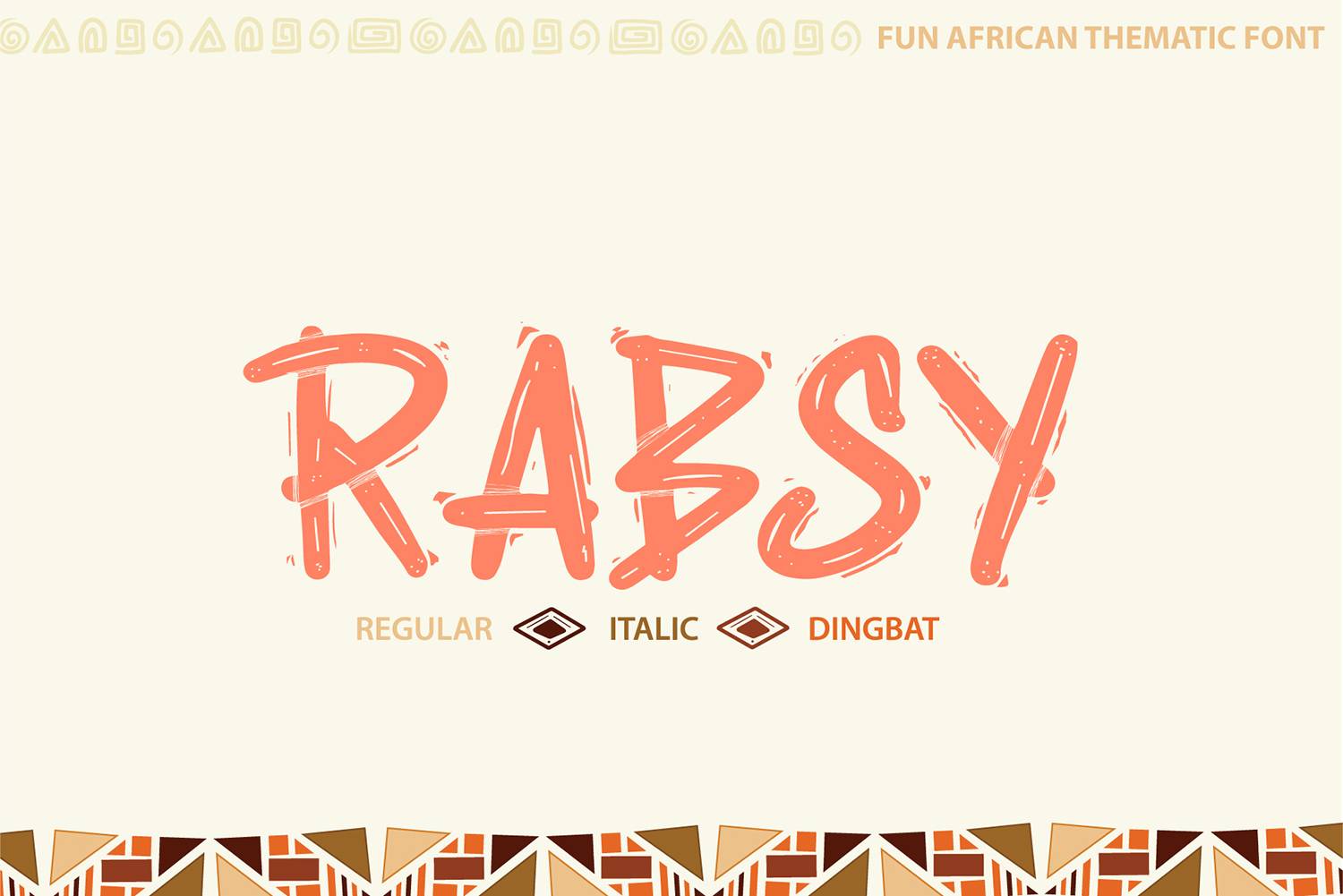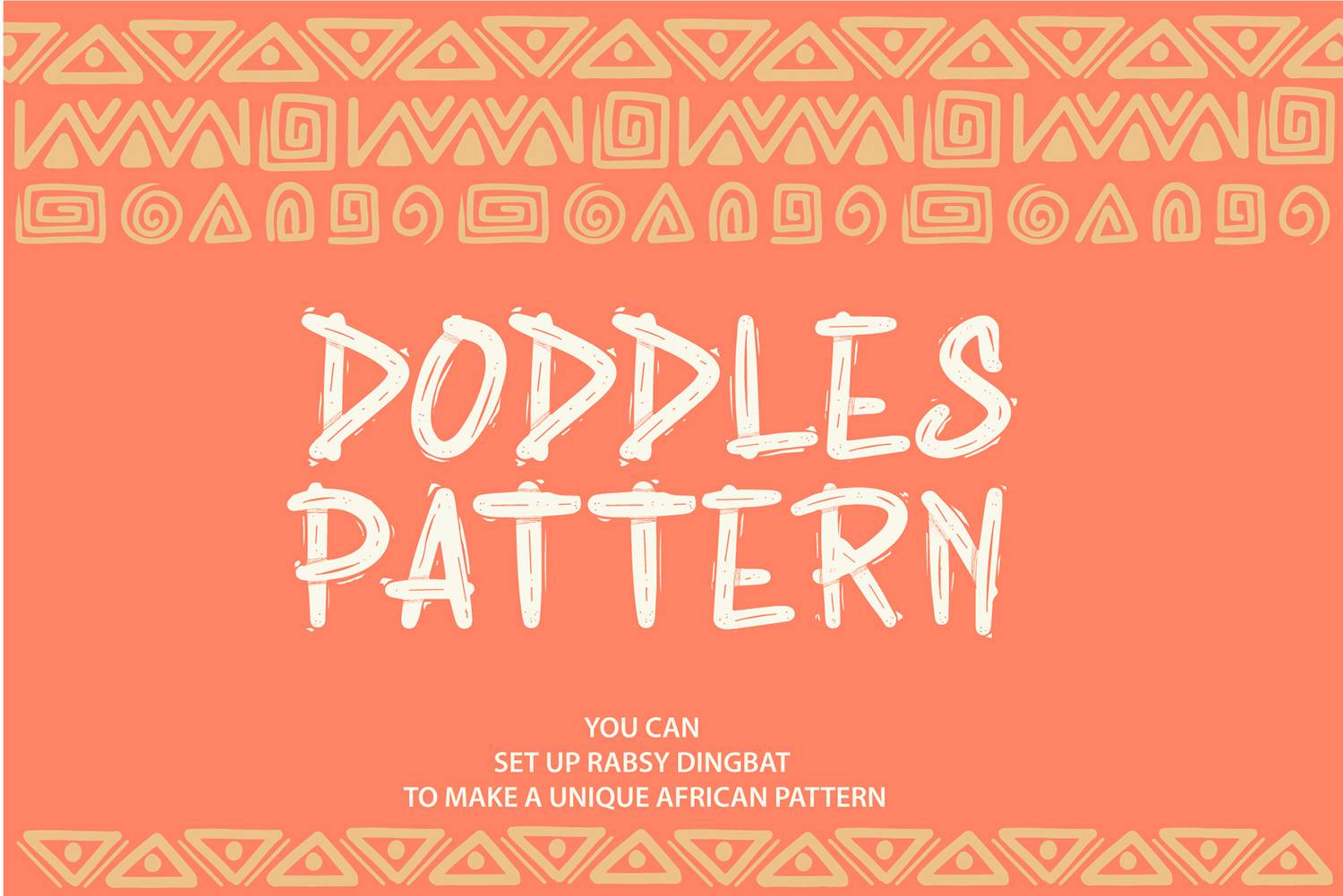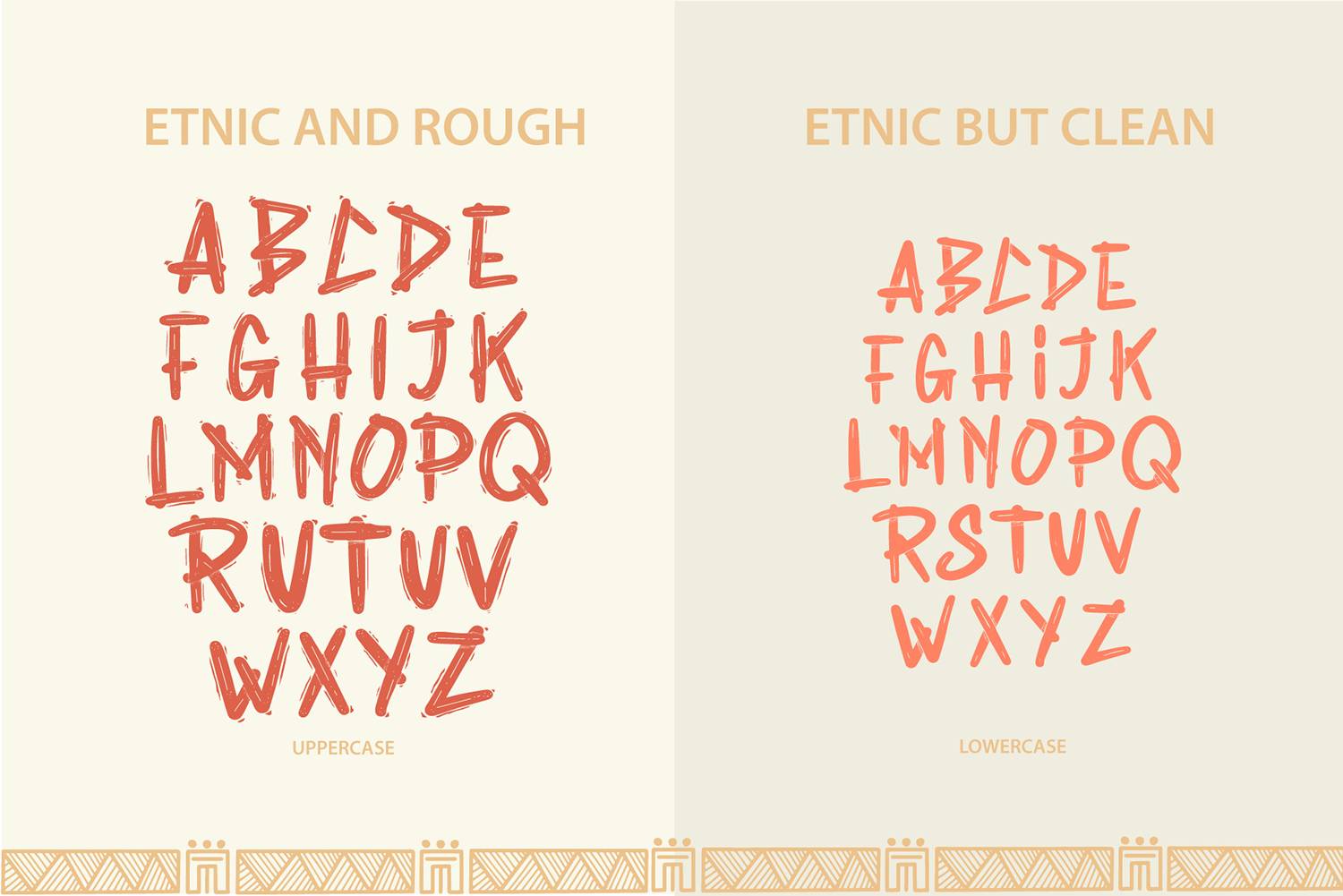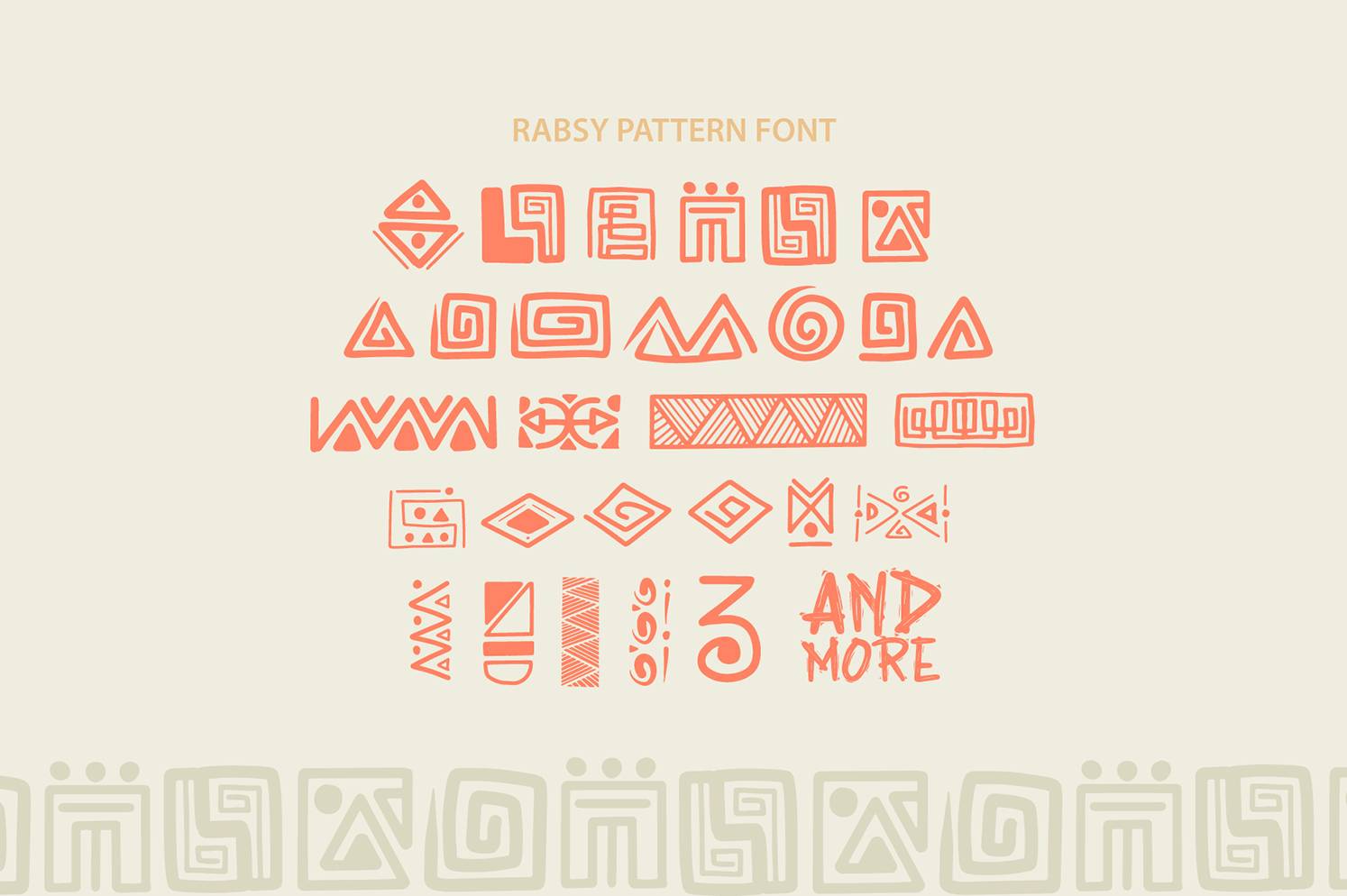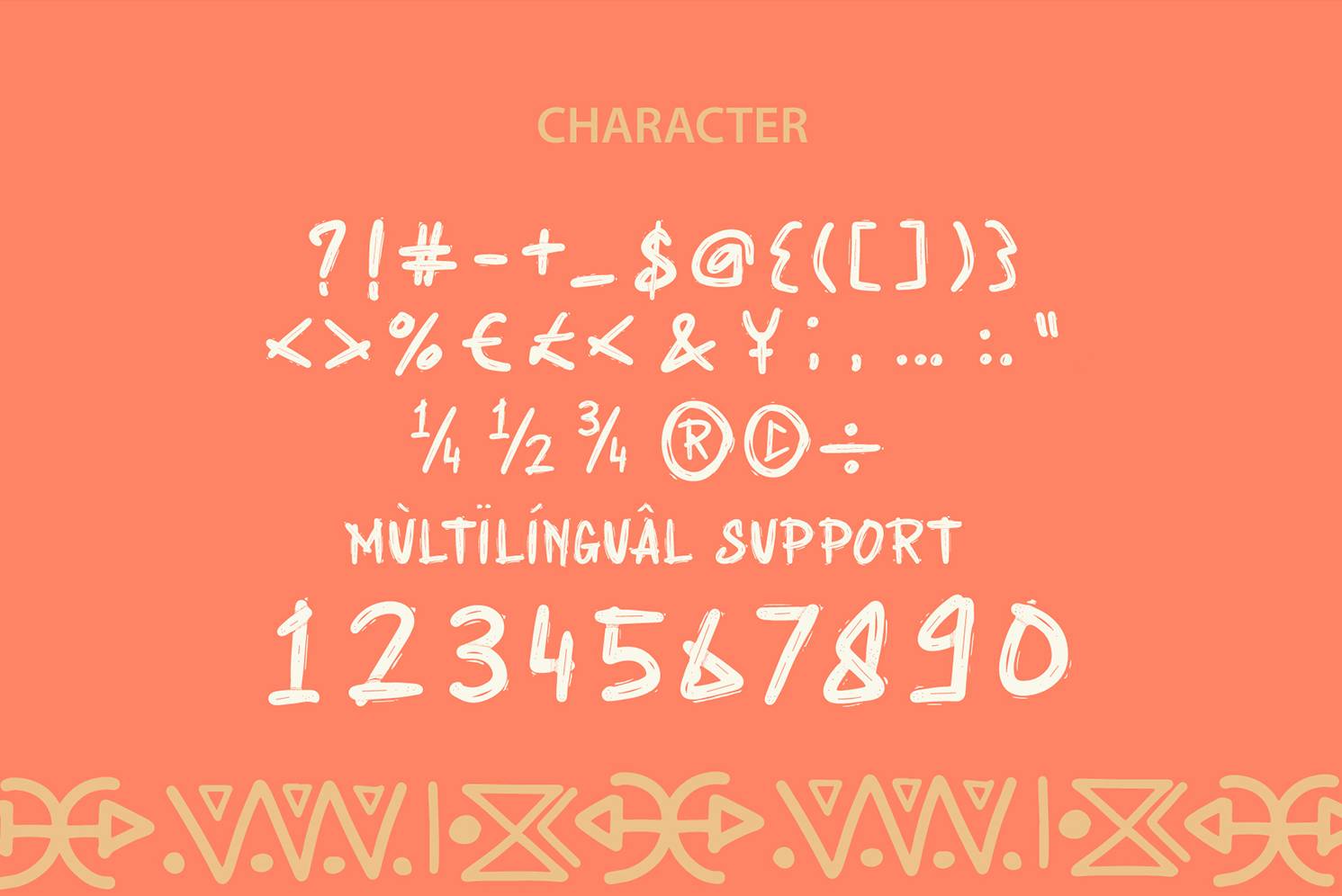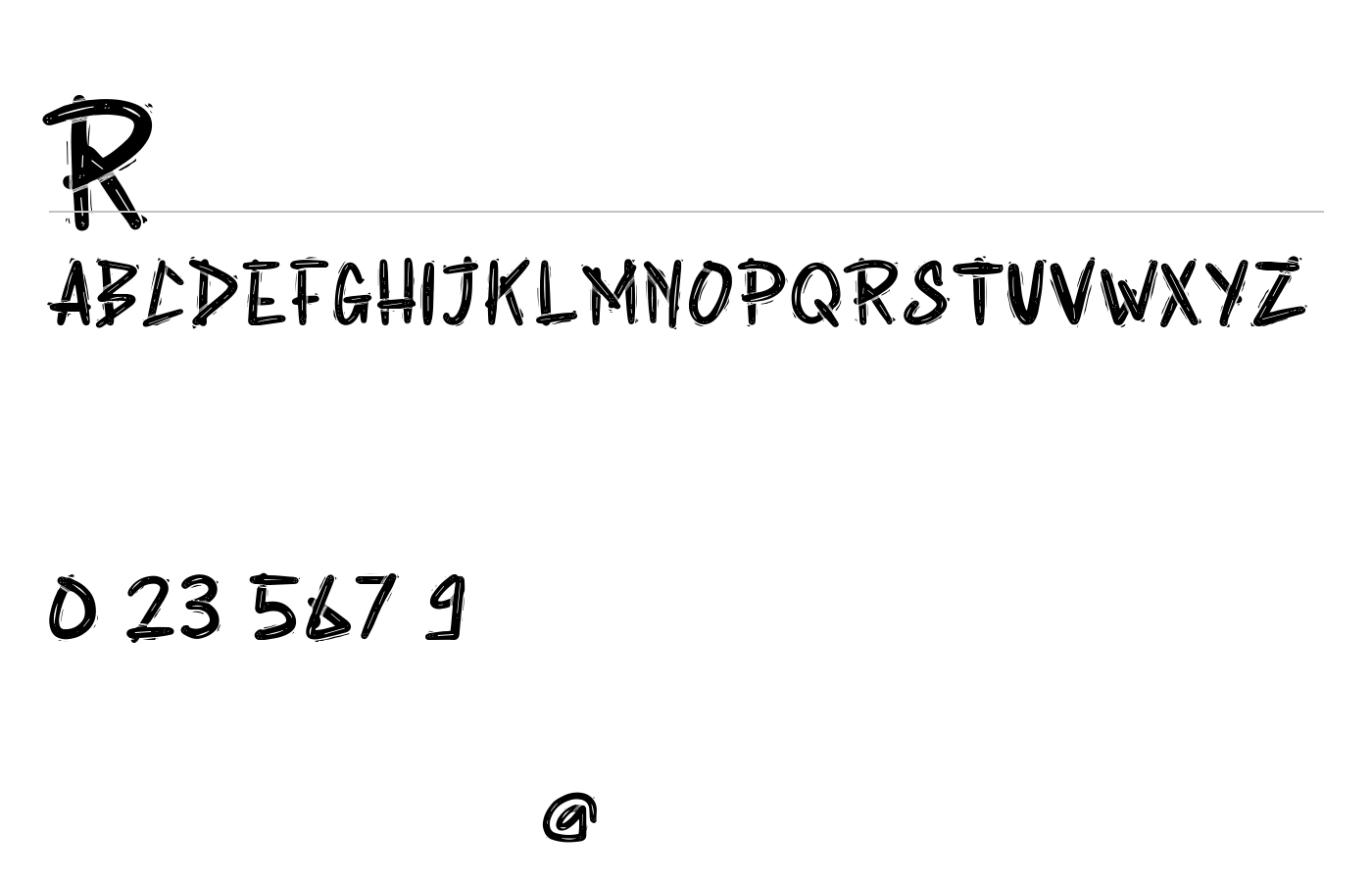
Rabsy is a bold and playful handwritten font characterized by its sketchy, marker-like strokes that give it an energetic and casual vibe. Its tall, narrow letterforms with uneven edges and quirky details make it ideal for creative projects, informal branding, and expressive headlines. This font works great where a fun, artistic touch is needed to capture attention and convey a lively personality.
Rabsy Font
About Rabsy Font
| Font family | Rabsy Font |
| Release date | 2018-11-13 |
| Designer | degi kurniawan |